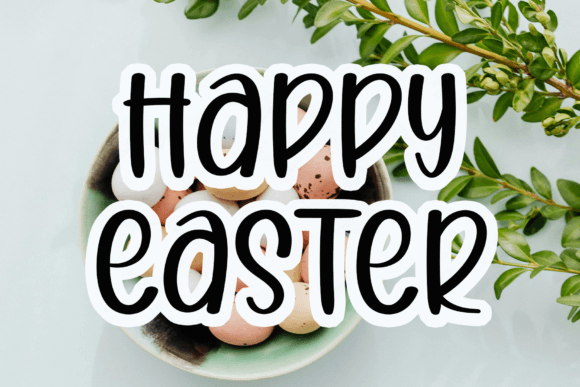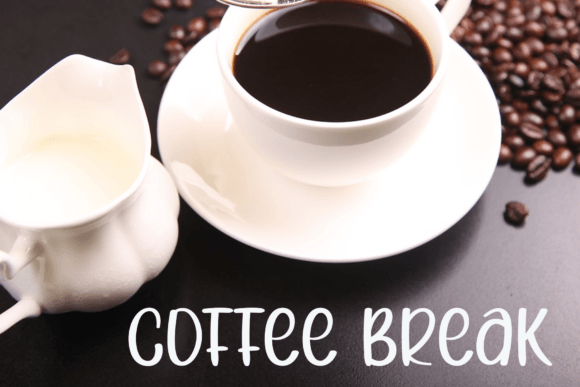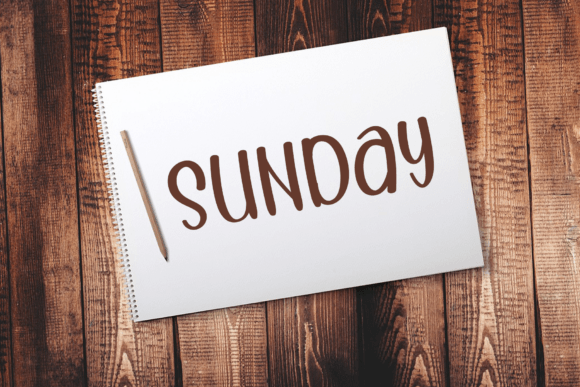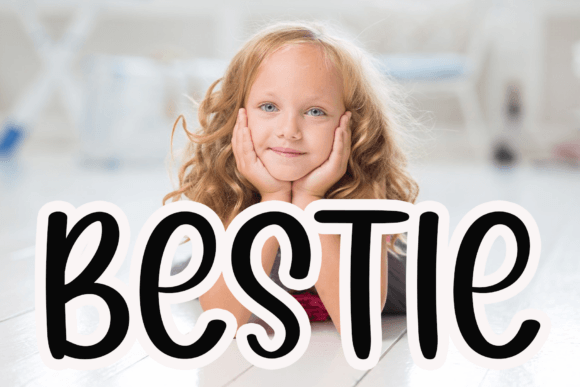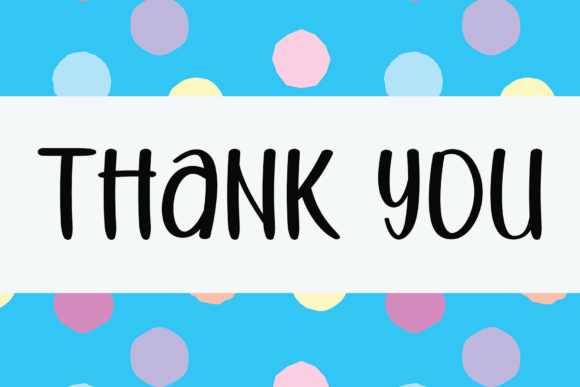
Gnome Font: The Simple yet Stunning Handwritten Font for Your Creative Projects
Are you on the hunt for a font that exudes elegance and simplicity? Look no further than the Gnome Font! This thin lettered and simple handwritten font is taking the design world by storm, and for good reason. Its ravishing style is perfect for creating gorgeous wedding invitations, beautiful stationary art, eye-catching social media posts, and so much more. In this article, we’ll dive into the world of Gnome Font and explore its features, uses, and benefits for designers and crafters.
What is Gnome Font?
Gnome Font is a modern, handwritten font that is characterized by its thin letters and simple design. Its clean lines and minimalist aesthetic make it a versatile font that can be used for a wide range of creative projects. Whether you’re designing a wedding invitation, a social media post, or a piece of stationary art, Gnome Font is sure to impress.
Features of Gnome Font
So, what makes Gnome Font so special? Here are just a few of its key features:
• Thin letters: Gnome Font features thin, delicate letters that are perfect for creating elegant and sophisticated designs.
• Simple design: The font’s simple design makes it easy to read and use in a variety of contexts.
• Handwritten style: Gnome Font has a warm, handwritten feel that adds a personal touch to any design.
• Versatile: This font can be used for a wide range of creative projects, from wedding invitations to social media posts.
Uses for Gnome Font
So, what can you use Gnome Font for? The possibilities are endless! Here are just a few ideas to get you started:
• Wedding invitations: Gnome Font is perfect for creating beautiful, elegant wedding invitations that set the tone for a special day.
• Stationary art: Use Gnome Font to create gorgeous stationary art, including greeting cards, thank you cards, and more.
• Social media posts: Add a touch of elegance to your social media posts with Gnome Font.
• Signage: Gnome Font is also great for creating eye-catching signage for events, businesses, and more.
Benefits of Using Gnome Font
So, why should you choose Gnome Font for your next project? Here are just a few benefits:
• Elegant and sophisticated: Gnome Font adds a touch of elegance and sophistication to any design.
• Easy to read: The font’s simple design makes it easy to read, even at small sizes.
• Versatile: Gnome Font can be used for a wide range of creative projects.
• Unique: Gnome Font has a unique, handwritten style that sets it apart from other fonts.
Tips for Using Gnome Font
Here are a few tips for getting the most out of Gnome Font:
• Pair with other fonts: Gnome Font pairs well with other fonts, including bold fonts and script fonts.
• Use it sparingly: Because Gnome Font is so elegant, it’s best to use it sparingly to avoid overwhelming the design.
• Experiment with colors: Gnome Font looks great in a variety of colors, from soft pastels to bold brights.
In conclusion, Gnome Font is a simple yet stunning handwritten font that is perfect for designers and crafters looking to add a touch of elegance to their creative projects. Its thin letters and simple design make it versatile and easy to use, while its handwritten style adds a personal touch. Whether you’re designing a wedding invitation, a social media post, or a piece of stationary art, Gnome Font is sure to impress. So why not give it a try and see the difference it can make in your designs?